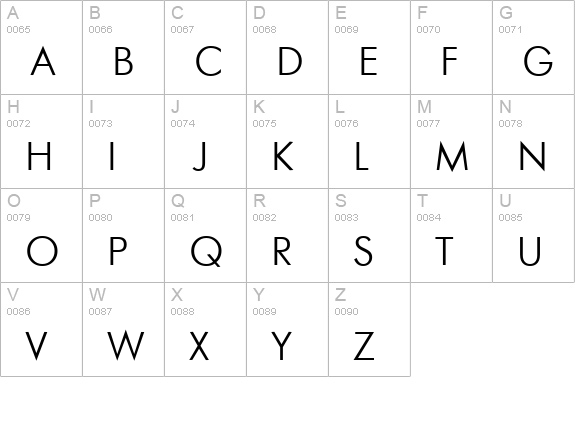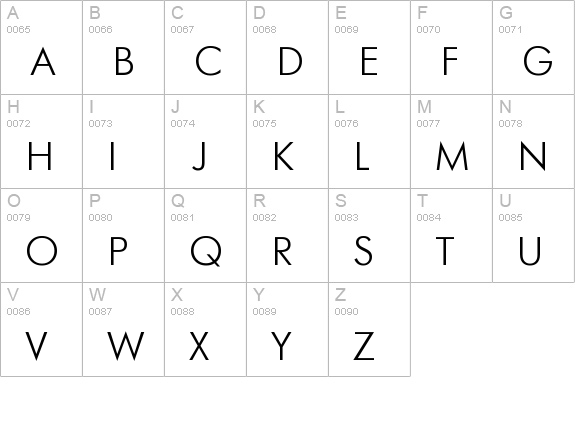
Introducing Futuris Cyrillic@ font, a sleek and modern typeface that combines traditional Cyrillic characters with a futuristic twist. This versatile font is perfect for a wide range of design projects, from branding to editorial design. With its clean lines and geometric shapes, Futuris Cyrillic@ exudes a sense of sophistication and style. What sets Futuris Cyrillic@ apart is not only its unique design, but also the fact that it is completely free to download. That's right - you can access this high-quality font at no cost by visiting FontsMarket.com. Whether you're a graphic designer looking to add a fresh touch to your projects or a business owner in need of a new logo, Futuris Cyrillic@ is sure to impress. Don't miss out on this opportunity to enhance your designs with this stunning typeface. Download Futuris Cyrillic@ today and elevate your creative projects to the next level.